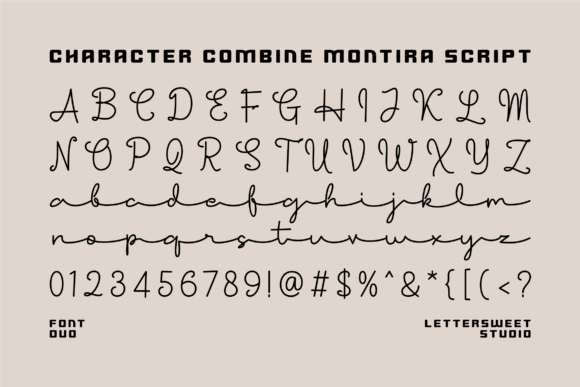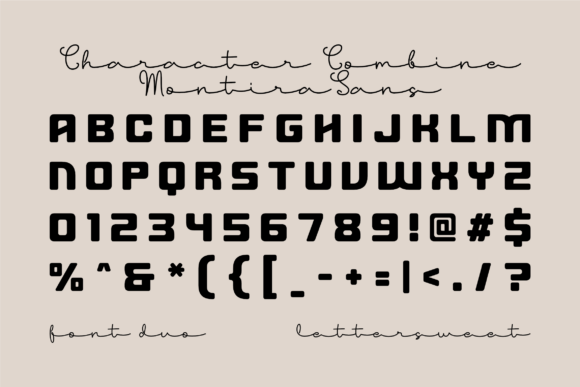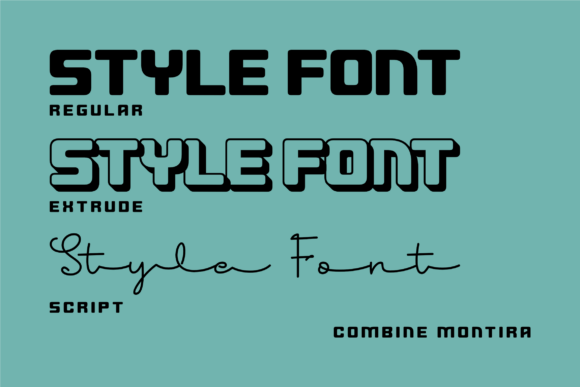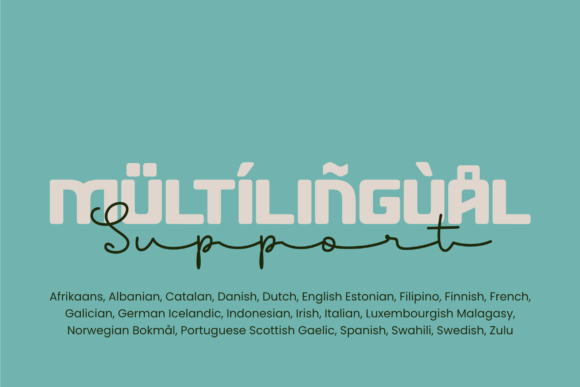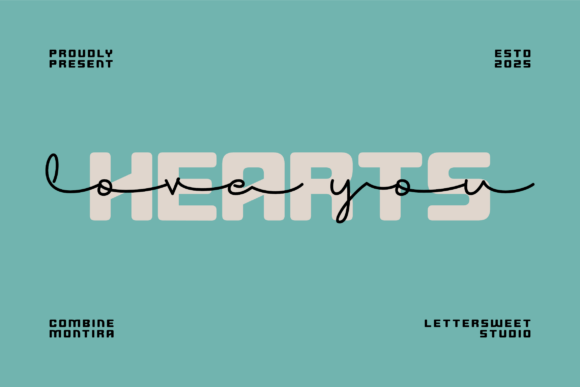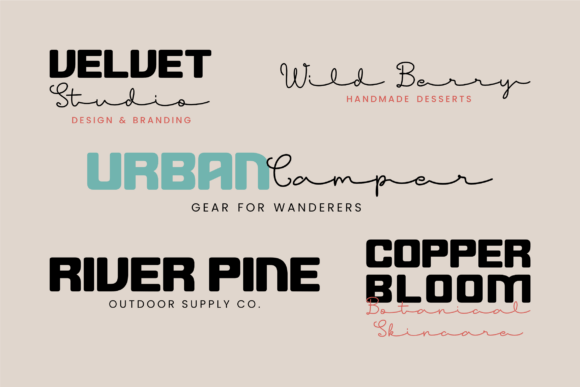
Introducing Combine Montira: The Ultimate Font Duo for Attention-Grabbing Titles
Are you tired of using the same old fonts for your designs? Look no further than Combine Montira, a font duo that pairs a smooth monoline script with a chunky rounded sans. This perfect pairing is ideal for creating attention-grabbing titles that will make your designs stand out from the crowd.
The Perfect Pairing: Monoline Script and Chunky Rounded Sans
Combine Montira is a font duo that combines two distinct styles: a smooth monoline script and a chunky rounded sans. The monoline script adds a touch of elegance and sophistication, while the chunky rounded sans provides a playful and modern vibe. This pairing creates a beautiful contrast that will add visual interest to any design.
The Plump, Rounded Sans: A Retro-Modern Vibe
The chunky rounded sans in Combine Montira delivers a retro-modern vibe that’s perfect for designs that need a bit of nostalgia. The plump, rounded letters are not only visually appealing but also highly versatile. They take outlines or drop shadows beautifully, creating a layered 3D look that will add depth to any design.
The Script: Friendly, Handwritten Warmth
The monoline script in Combine Montira adds a touch of friendly, handwritten warmth to any design. This script is perfect for adding a personal touch to logos, posters, packaging, labels, and social media posts. The script’s smooth lines and flowing curves create a sense of movement and fluidity, making it ideal for designs that need a bit of personality.
Combine Montira is a versatile font duo that can be used in a variety of design applications. Use them together for a headline-tagline combo, or separately when you need different voices within the same brand style. The possibilities are endless, and the font duo is perfect for:
- Logo & wordmark
- Headlines
- Event posters
- Stickers & merchandise
- Product packaging
- YouTube thumbnails
- Instagram posts
- Any project with a groovy vintage mood
Tips for Using Combine Montira
Here are a few tips for getting the most out of Combine Montira:
- Use the chunky rounded sans for headlines and titles to grab attention.
- Use the monoline script for body text or taglines to add a personal touch.
- Don’t be afraid to mix and match the two fonts to create a unique look.
Combine Montira is a font duo that is sure to take your designs to the next level. With its smooth monoline script and chunky rounded sans, this pairing is perfect for attention-grabbing titles and adding a touch of personality to any design. Whether you’re a designer, craft, or DIY enthusiast, Combine Montira is a must-have font duo for any project with a groovy vintage mood.